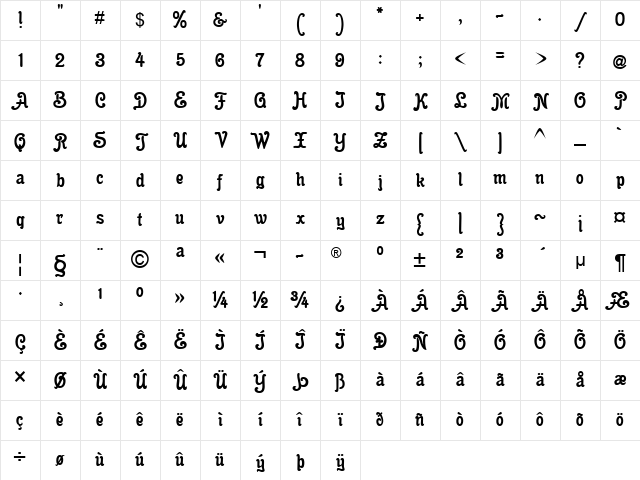
Gloria Regular
Foundry: Peter Wiegel
Designer: Peter Wiegel
Design Context for Gloria
Gloria is a composed and adaptable typeface that performs quietly and consistently across a wide range of design contexts.